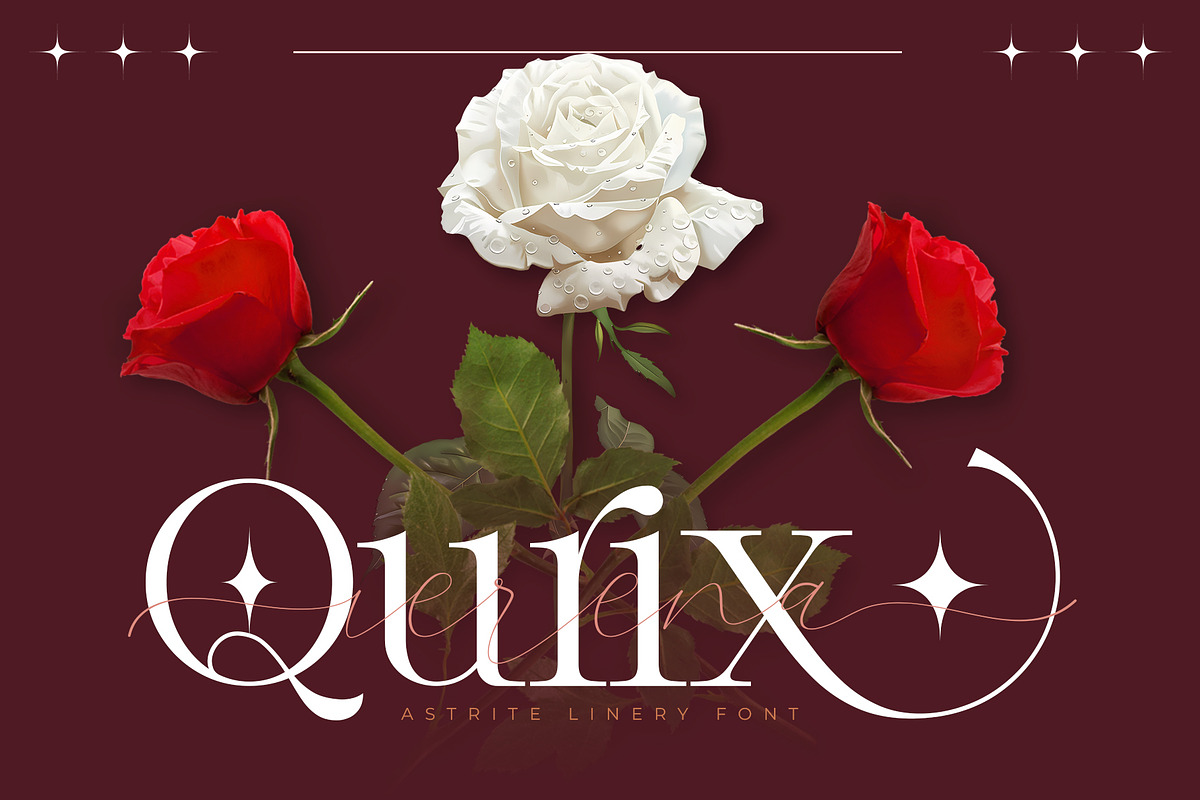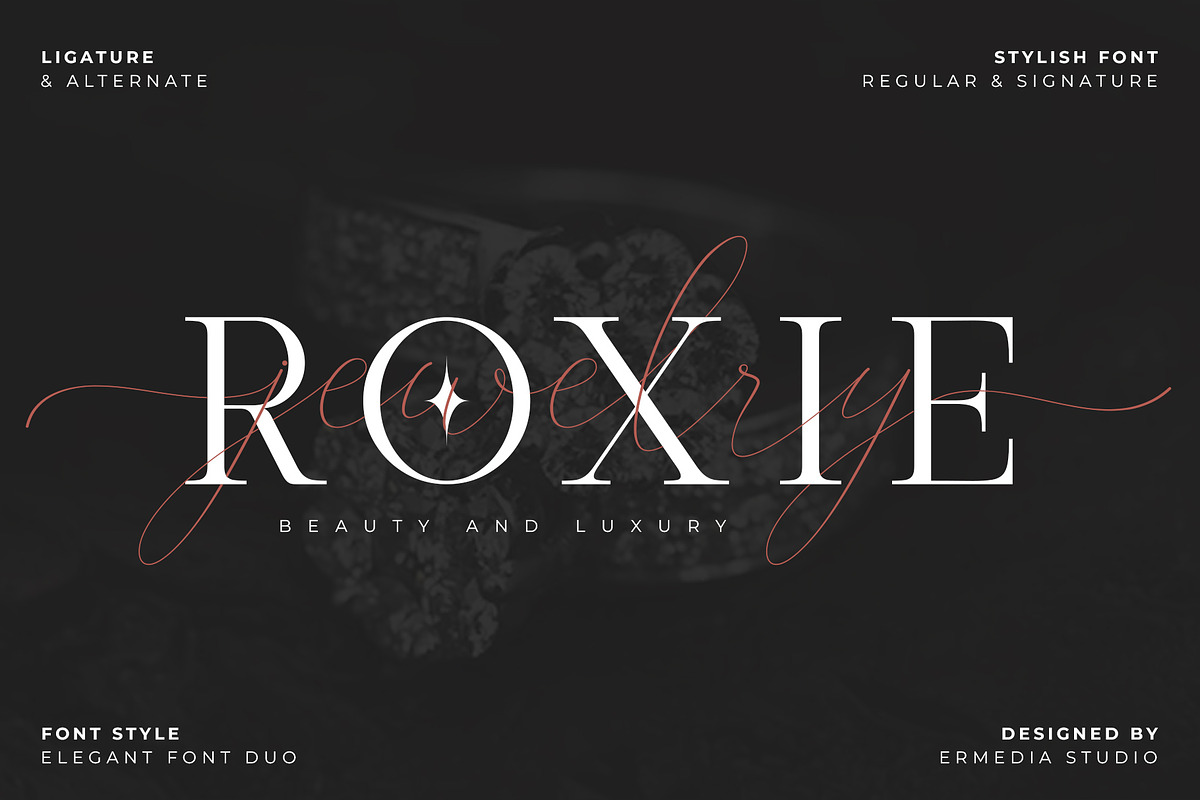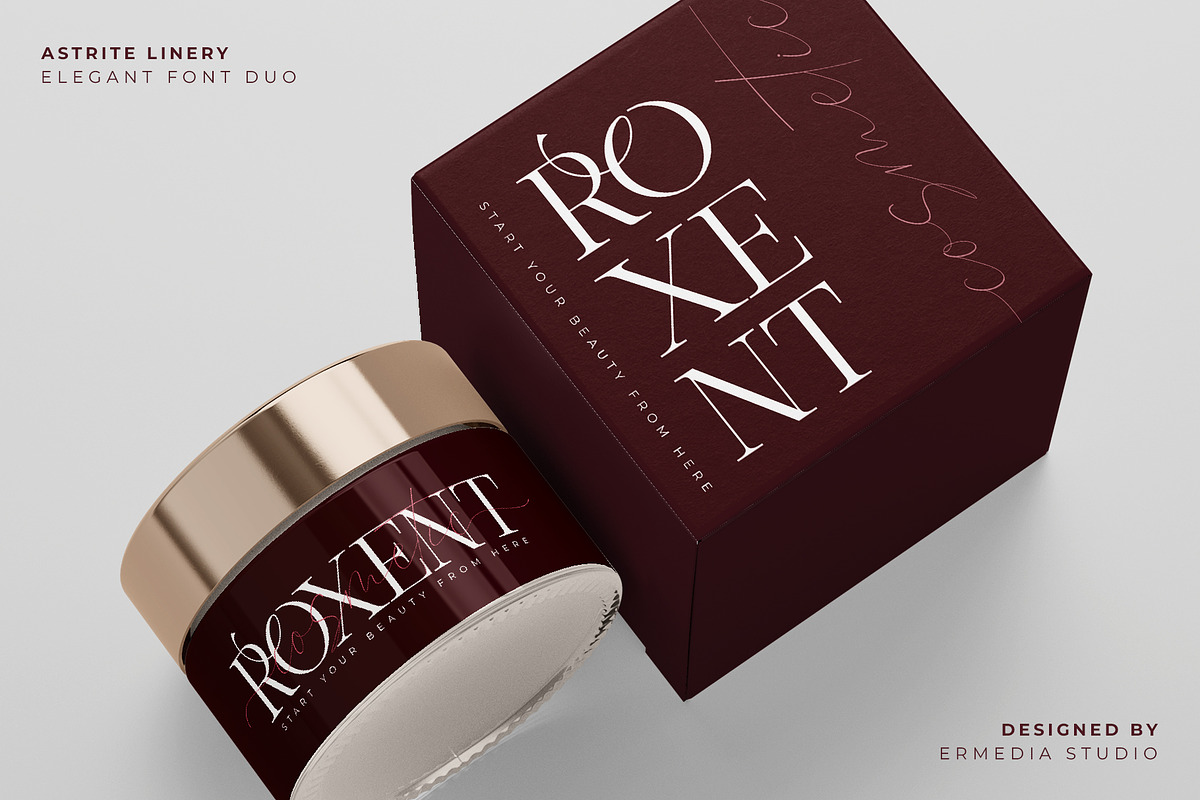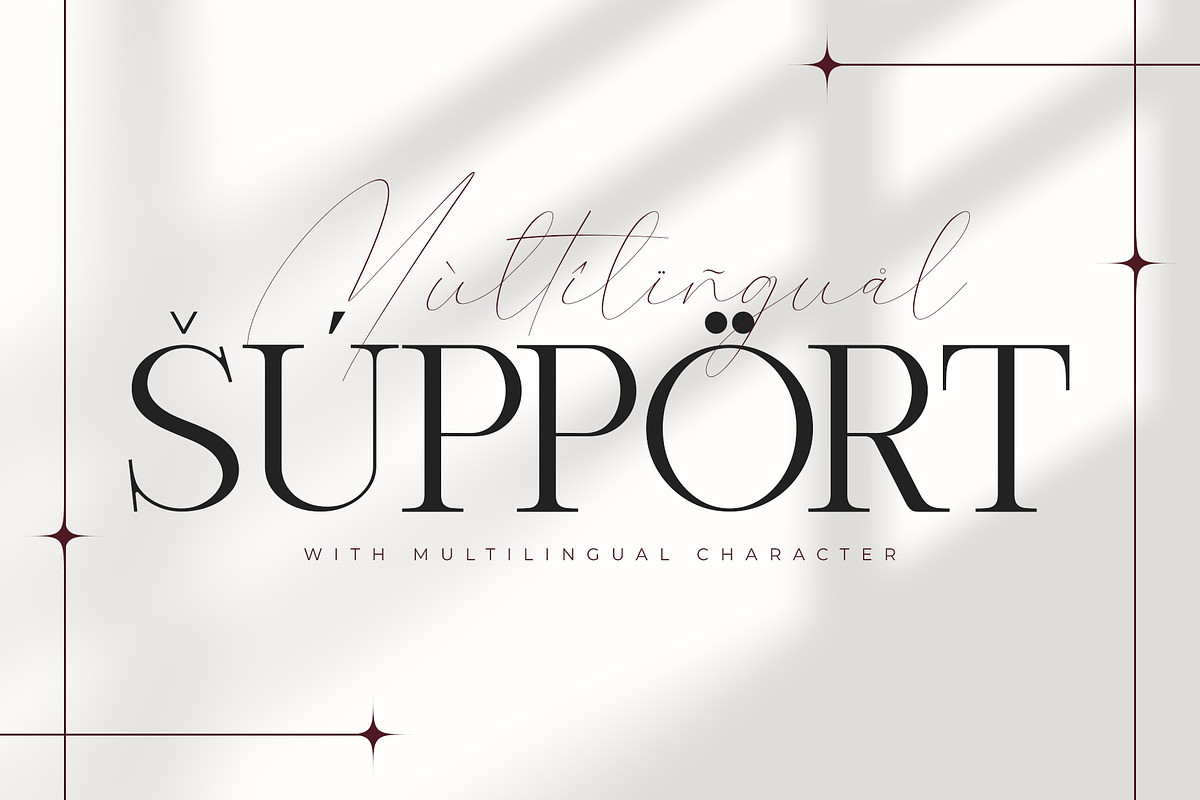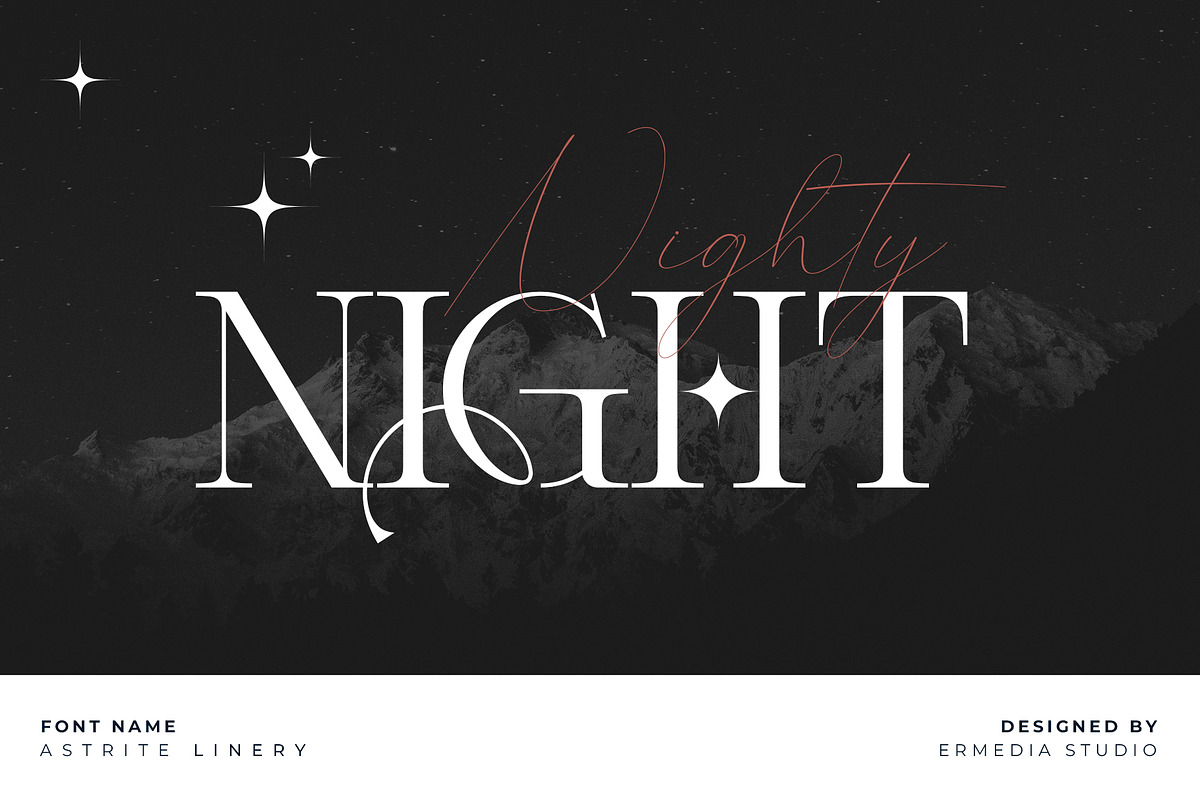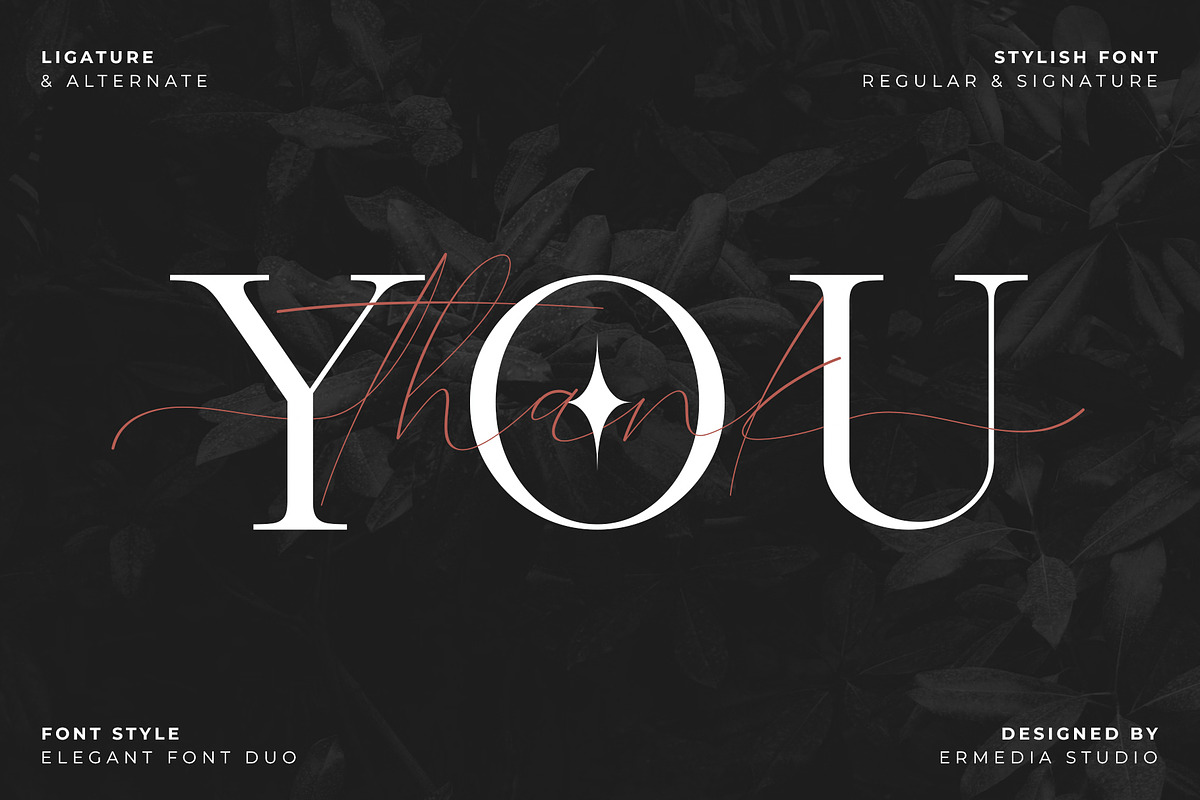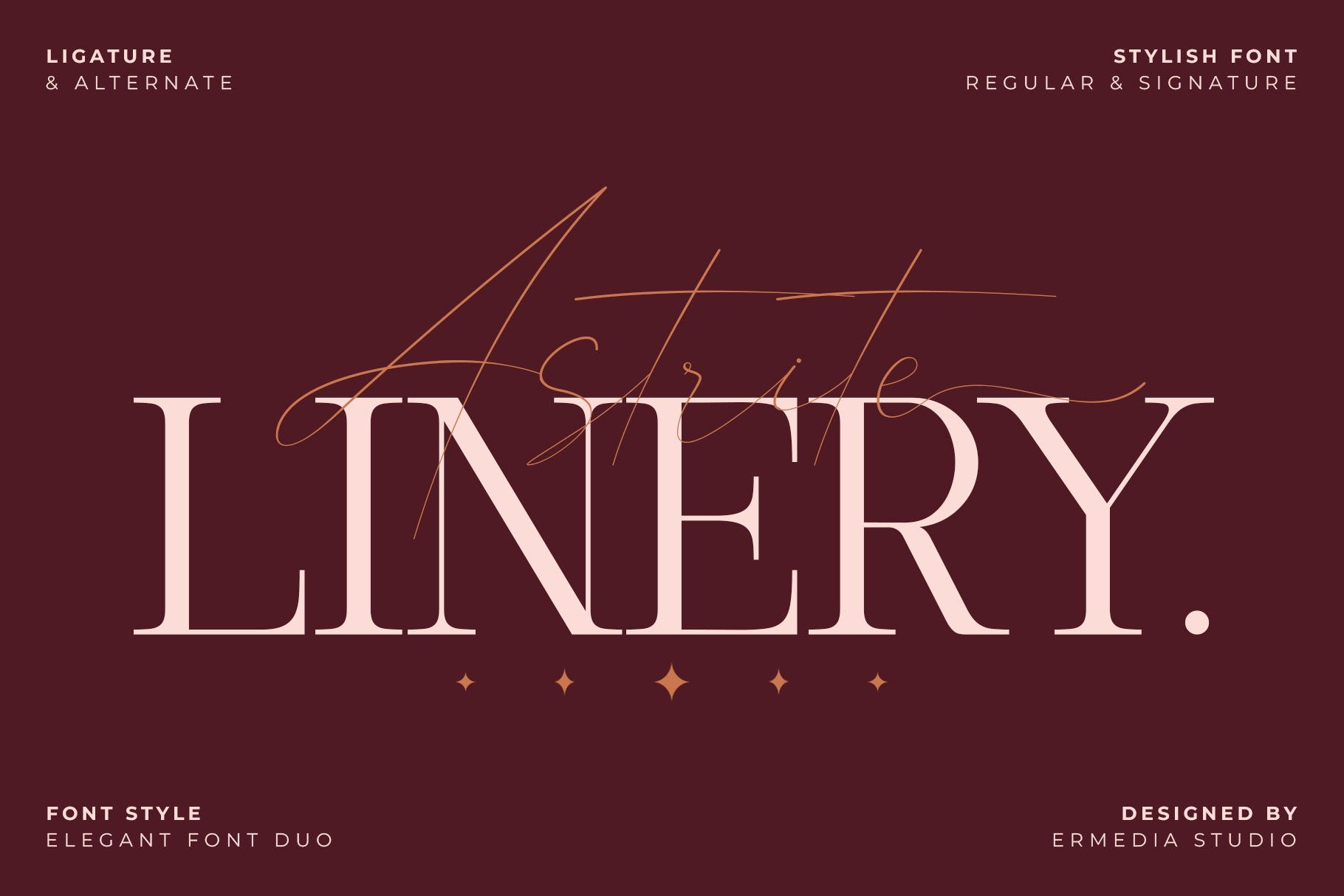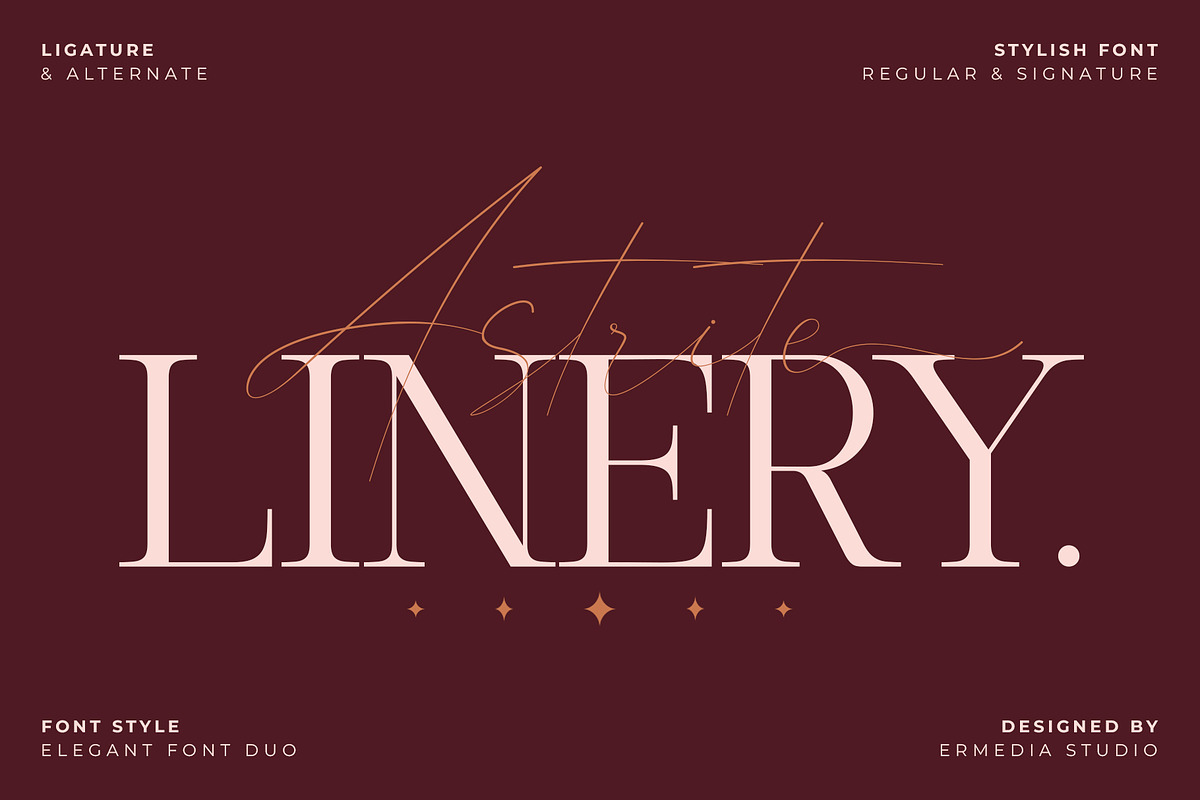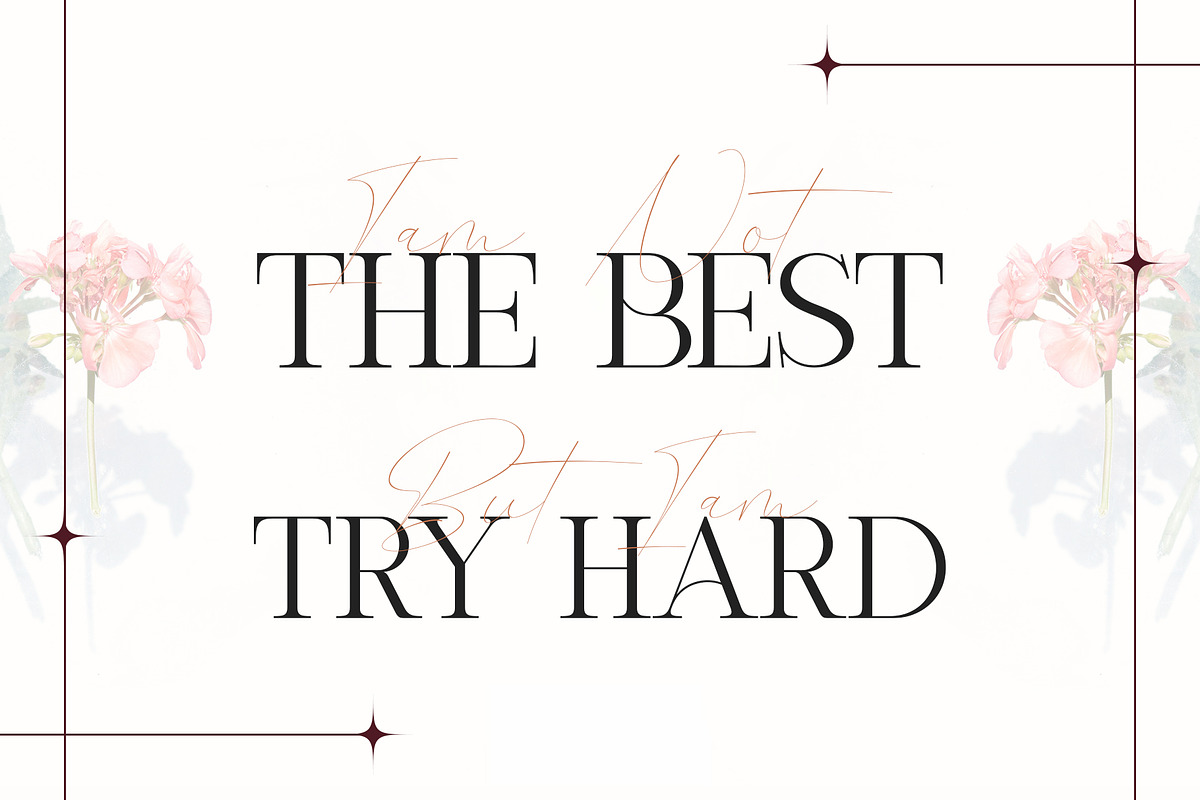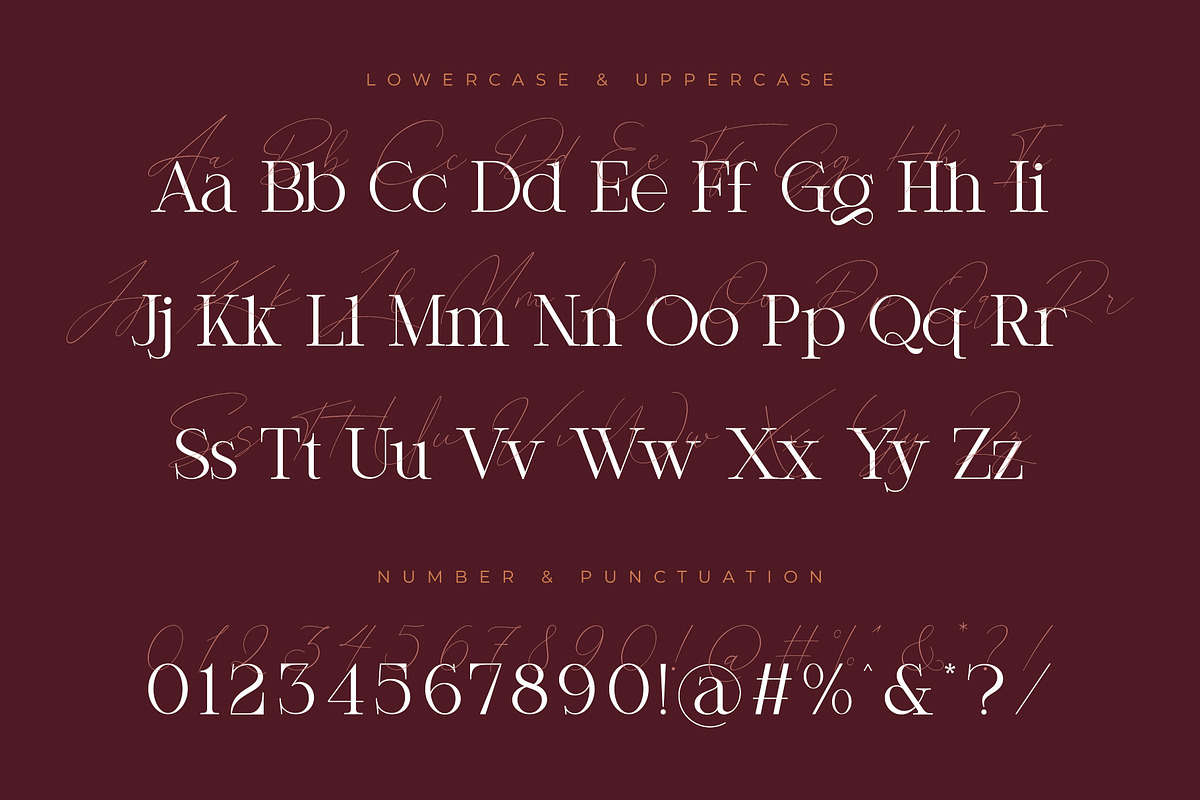
Astrite Linery - Font Duo
Introducing Astrite Linery is an elegant serif font combined with a handwritten script font that will add elegance and style to your designs. This duo font delivers a classy and elegant aesthetic, making it perfect for headlines, logos, covers, posters, quotes, magazines, wedding invitations, product packaging, social media, marketing materials, and more.